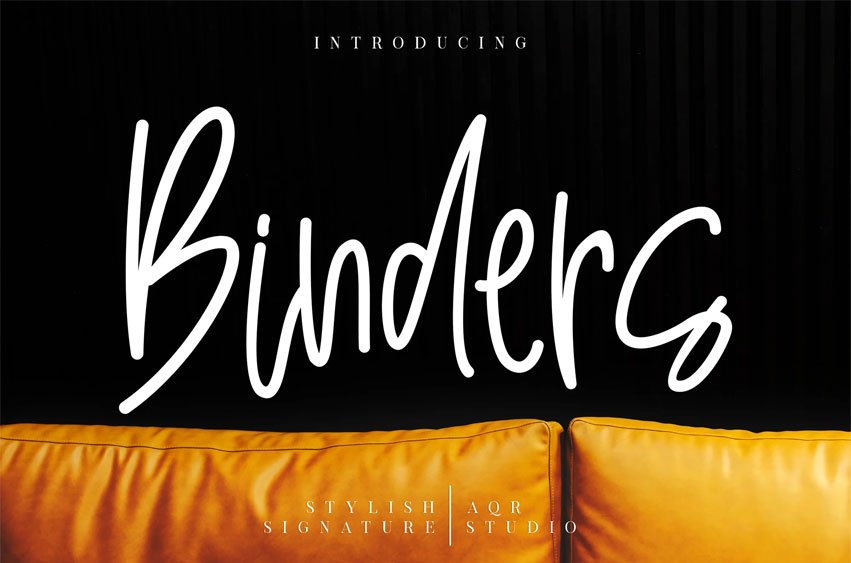
Binders Font is a handwritten script font based on everyday’s writing.
This collection of scripts is perfect for personal branding, wedding, magazine, card design and many more design what you want.
- Basic Character Uppercase & Lowercase
- Numeric and punctuation
- Foreign language support
- PUA Encoded Supported
- Alternates & Ligatures